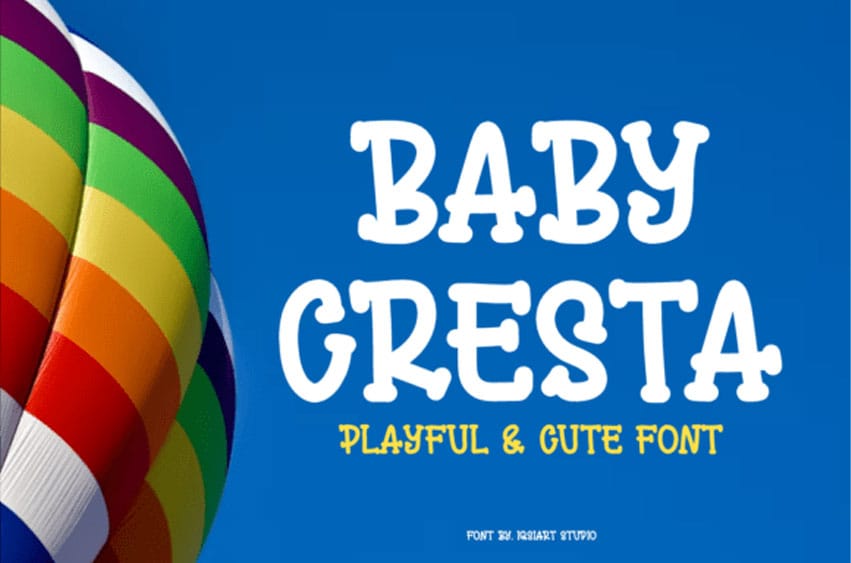
Baby Cresta Font is a fun and quirky display font. Add it to your creative ideas and enjoy the results.
This font is well-suited for a variety of contexts, such as print design, promotional materials, or magazine layouts.